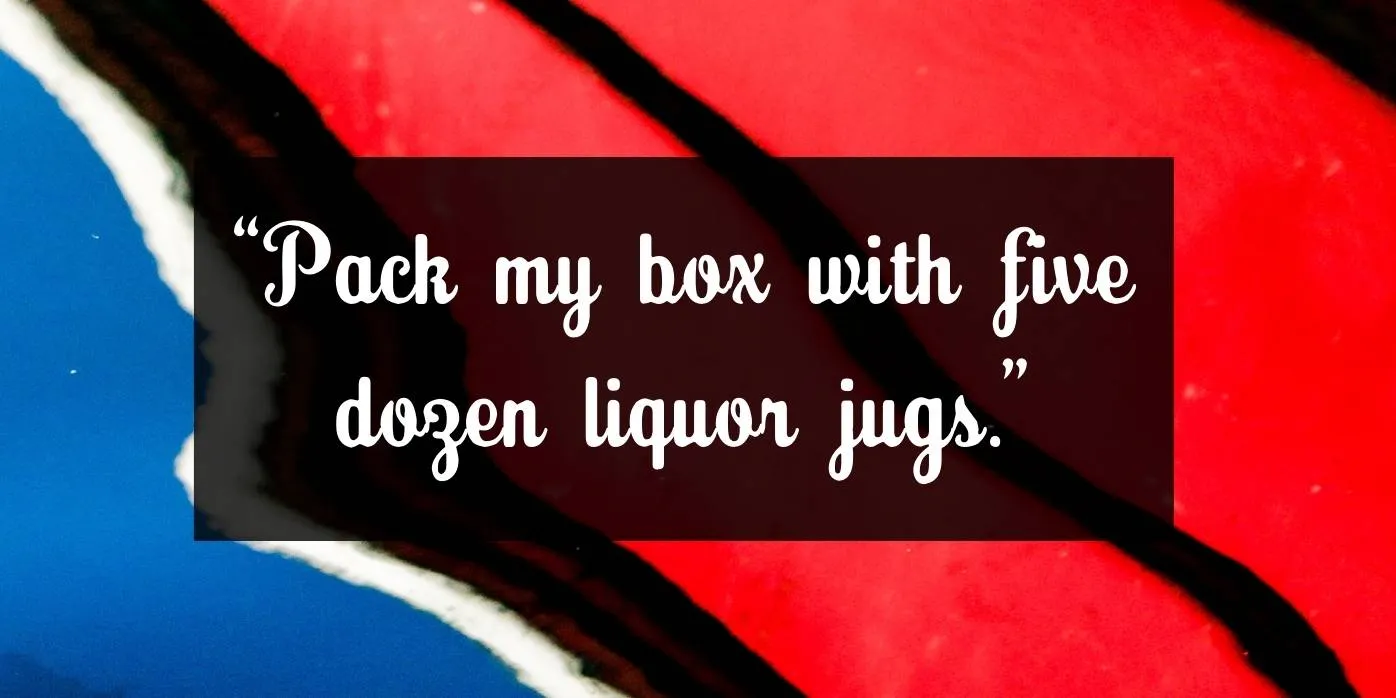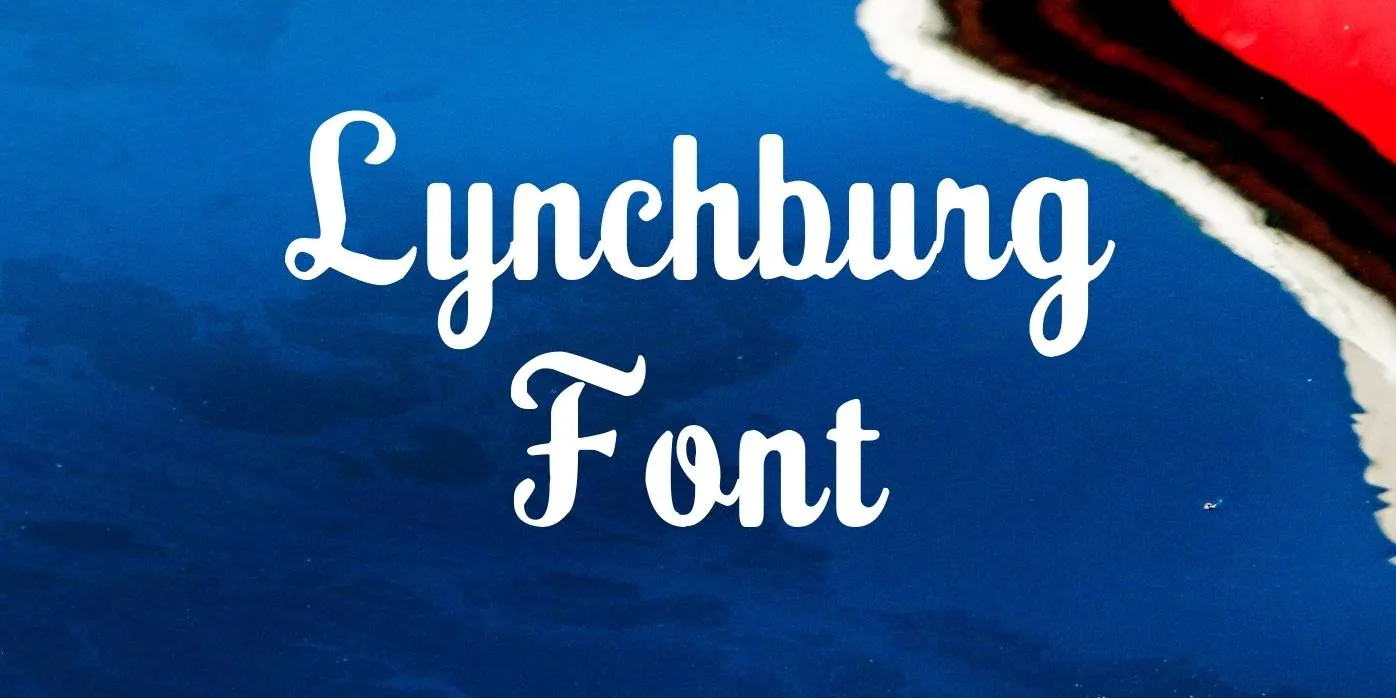
Lynchburg Font
Lynchburg Font is a new font created by designer Jack Daniel. This font was inspired by the classic Americana style and is perfect for creating vintage-inspired designs. It belongs to the Script typeface. This cozy font includes three different styles: Regular, Distressed, and Decorated.
Each style has its own unique look that can be used to create a variety of design projects. The designers add classic features and a touch of modernity to this timeless font. As a result, this Font is very versatile and can be used for a wide range of projects. It’s perfect for creating logos, branding materials, invitations, stationery, and much more.